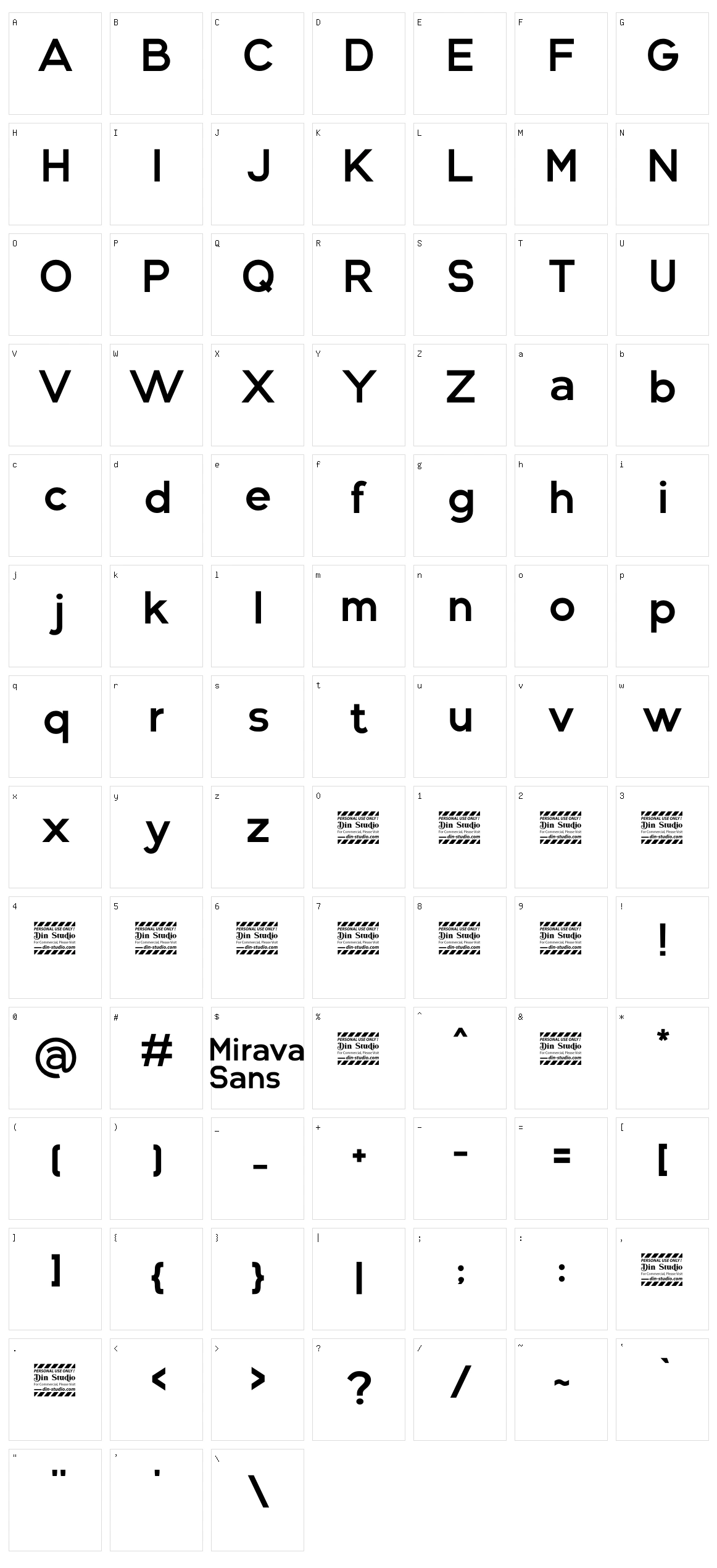
The free font Mirava is carefully designed by Din Studio, showcasing a thoughtful balance of creativity and usability and falls under the Sans serif font style. When you download the ZIP file, it contains only 324.65 KB of font files, making it lightweight and quick to download. Please review the license details below to understand permitted usage and distribution rights. If license information is not available, we recommend using this font for personal projects only or contacting the author directly for commercial usage permissions.